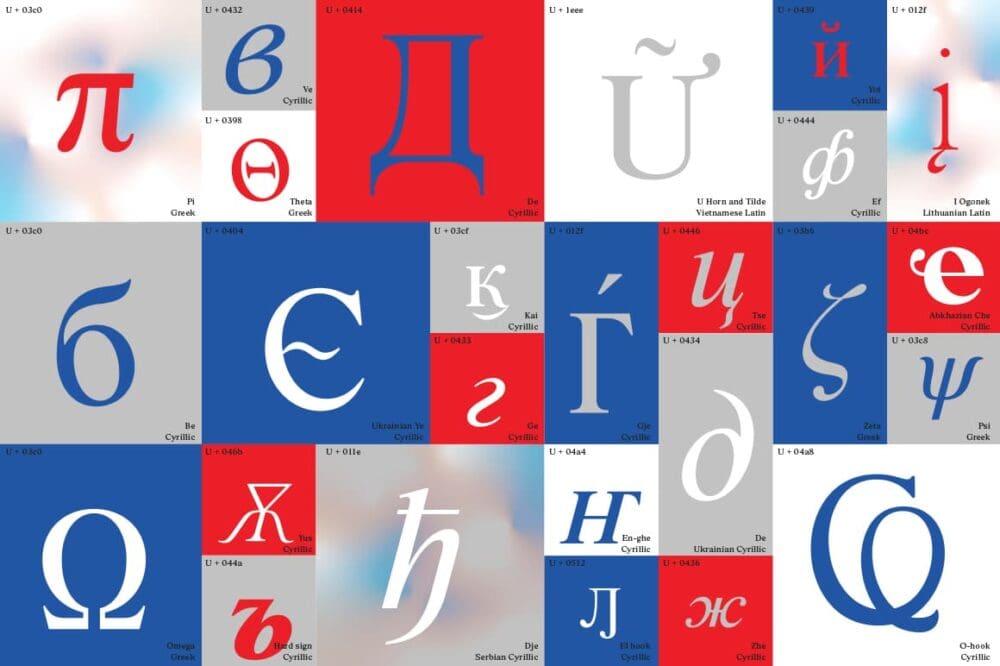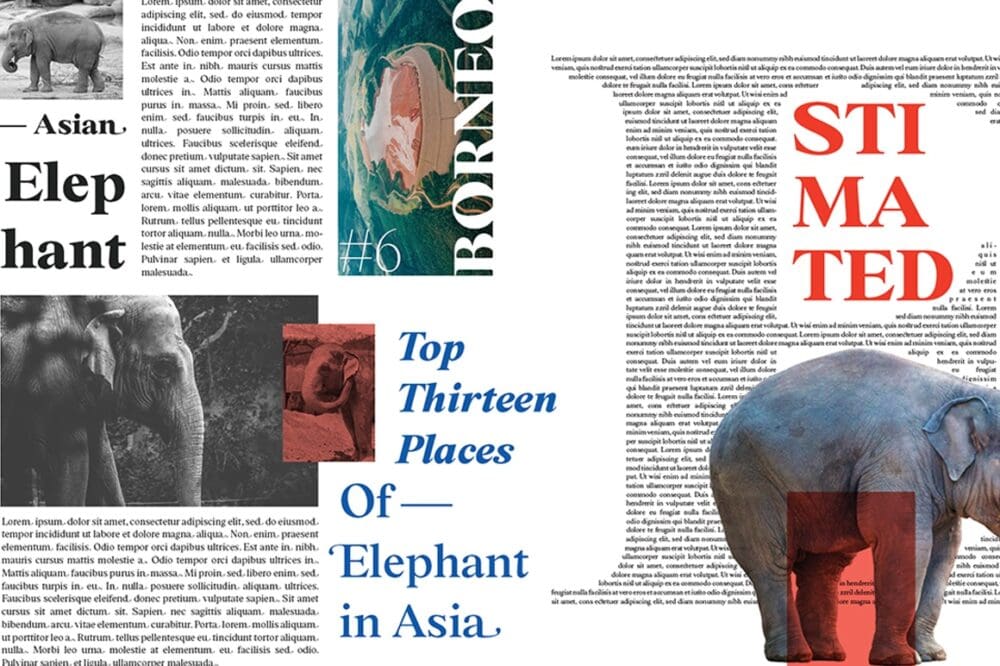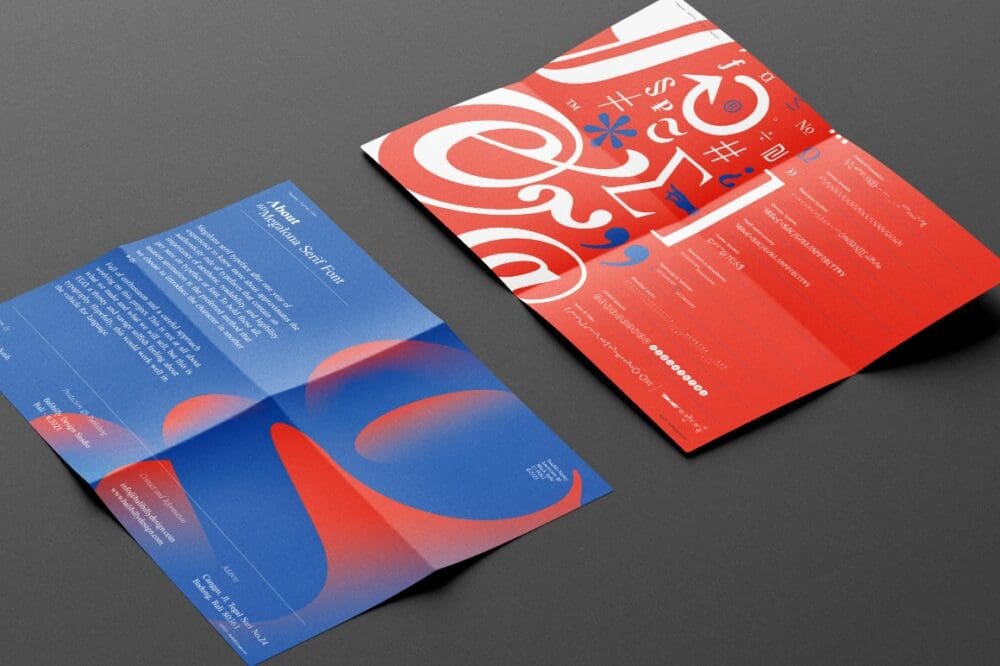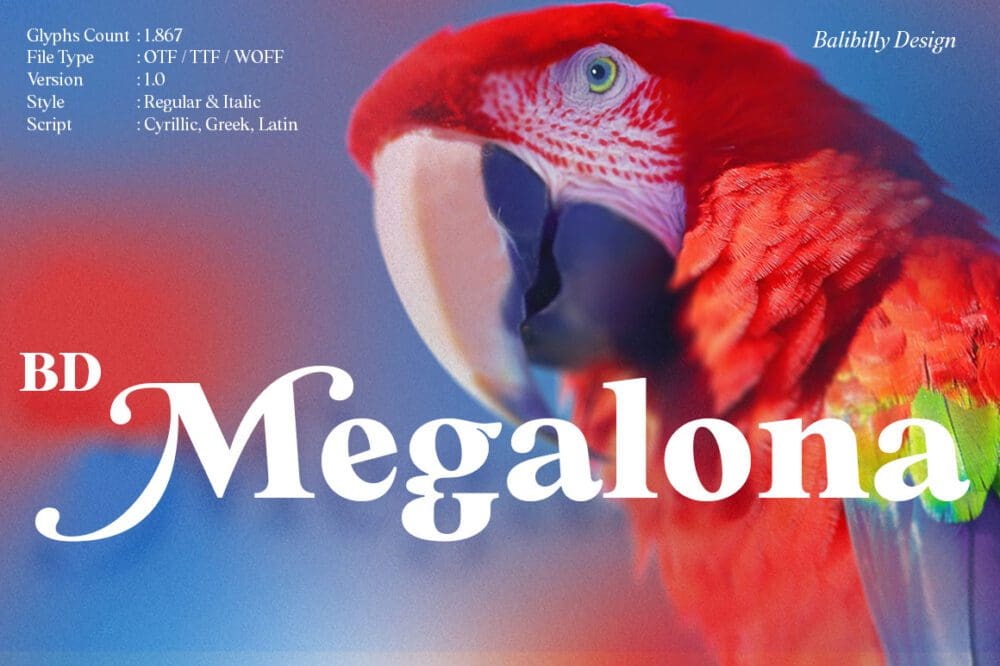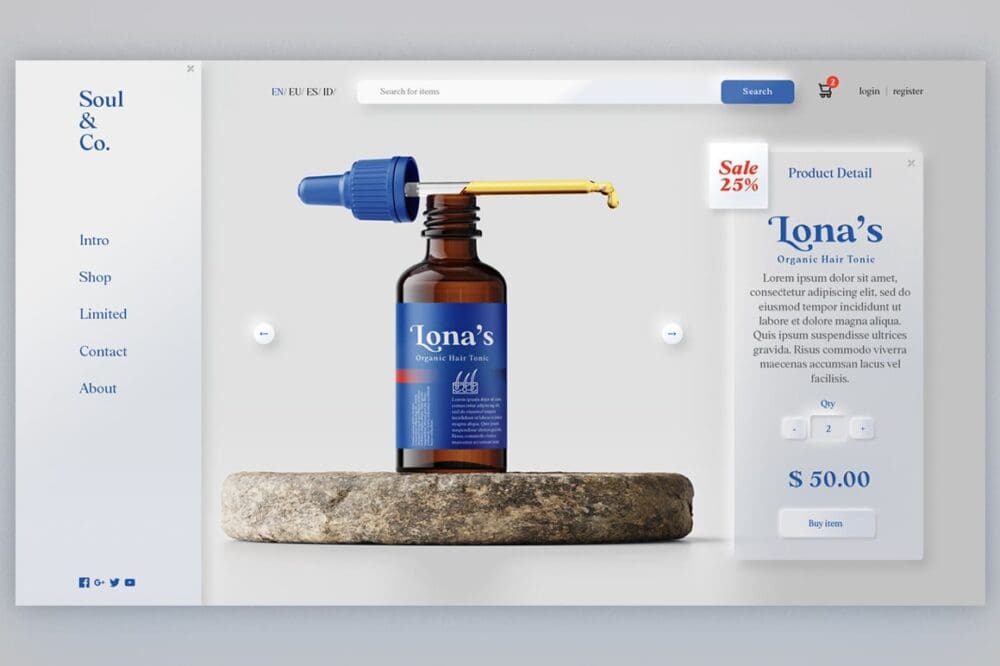
BD Megalona Serif Font
BD Megalona Serif Font provides a range of choices that will give luxury vibes in symmetrical layouts with selective deviations, and work well in a stylish look for your typographic project. This typeface is created by a careful approach, persistence, and full of totality. You are not allowed to use this font for commercial use.